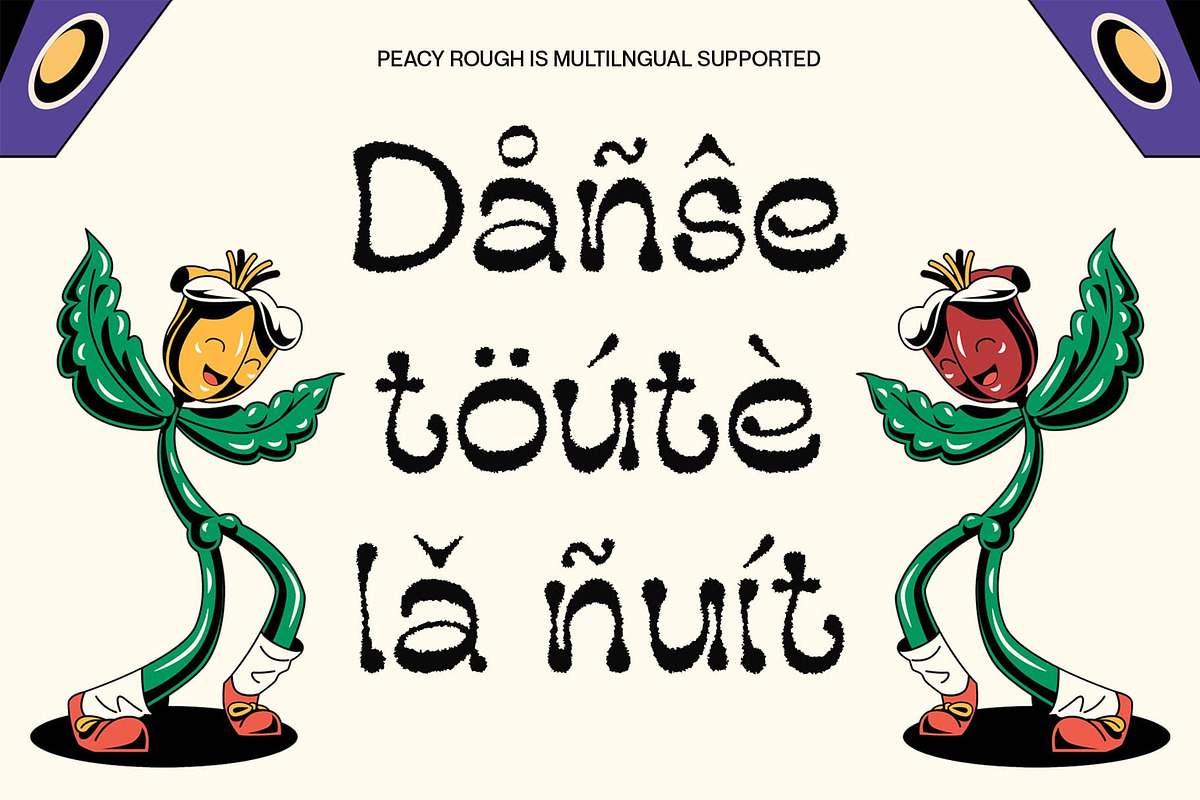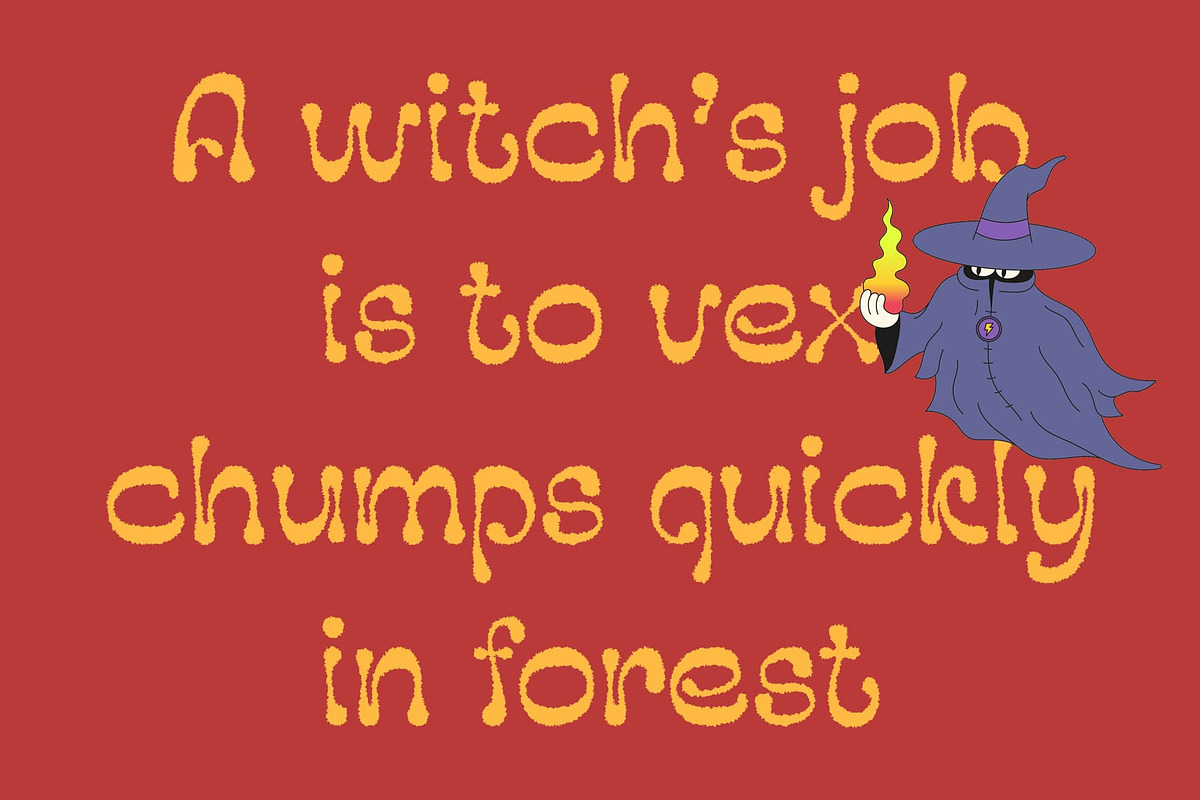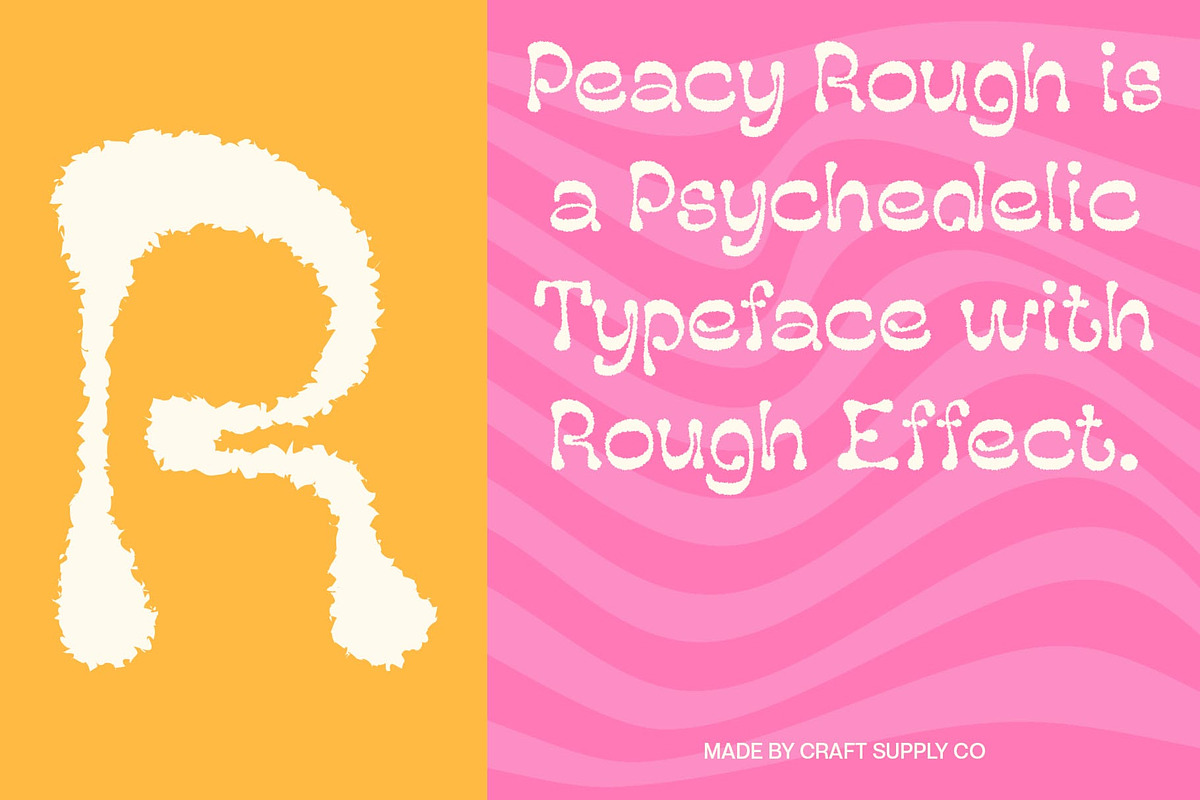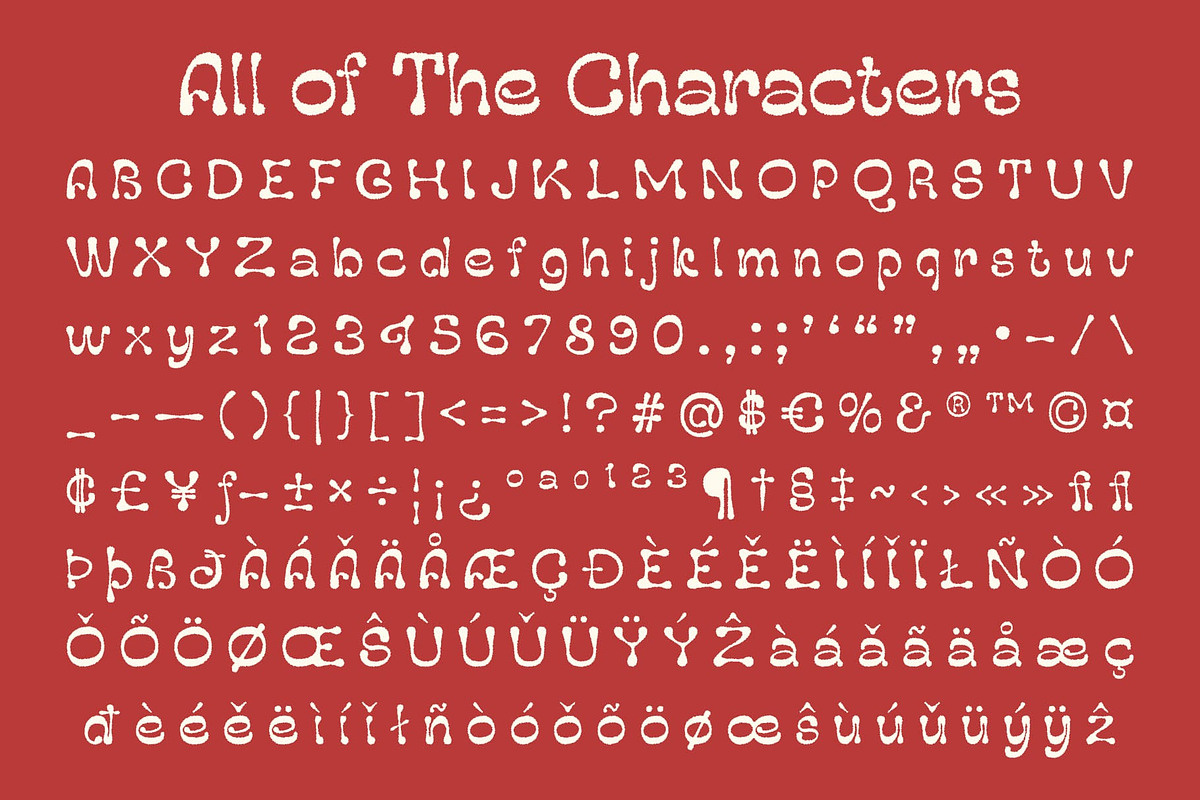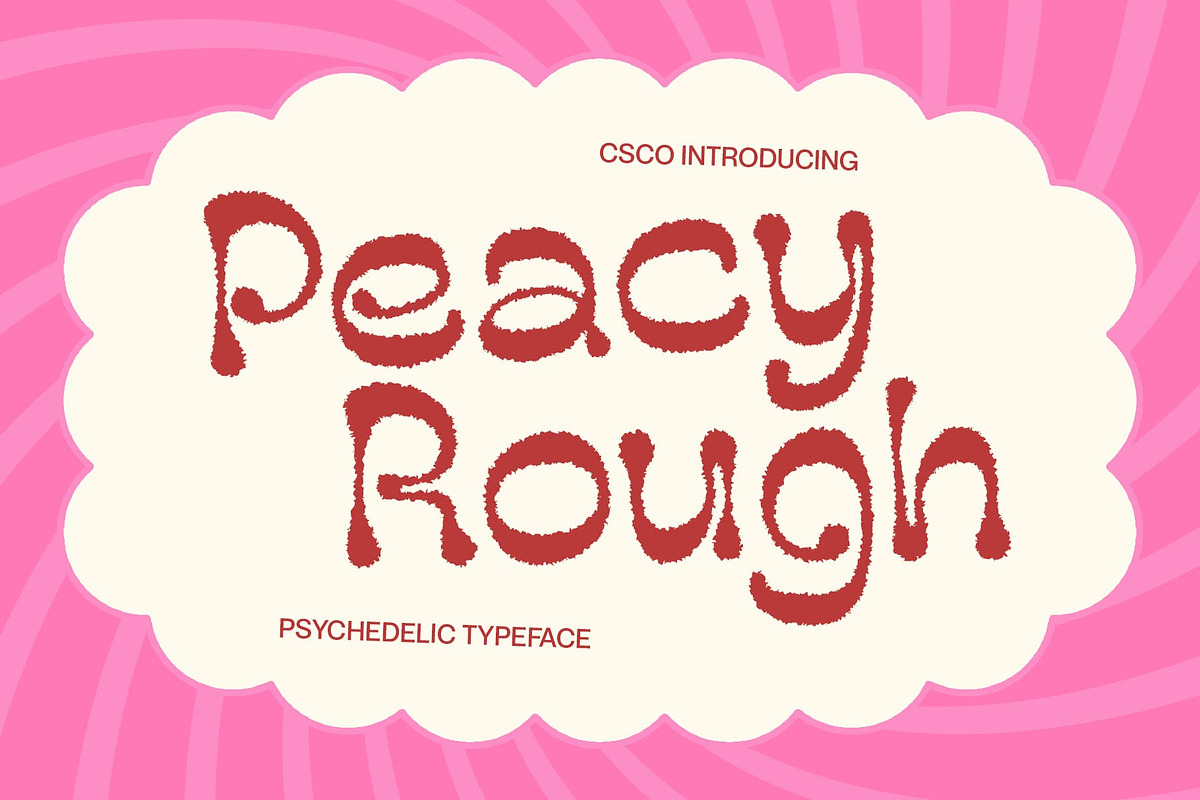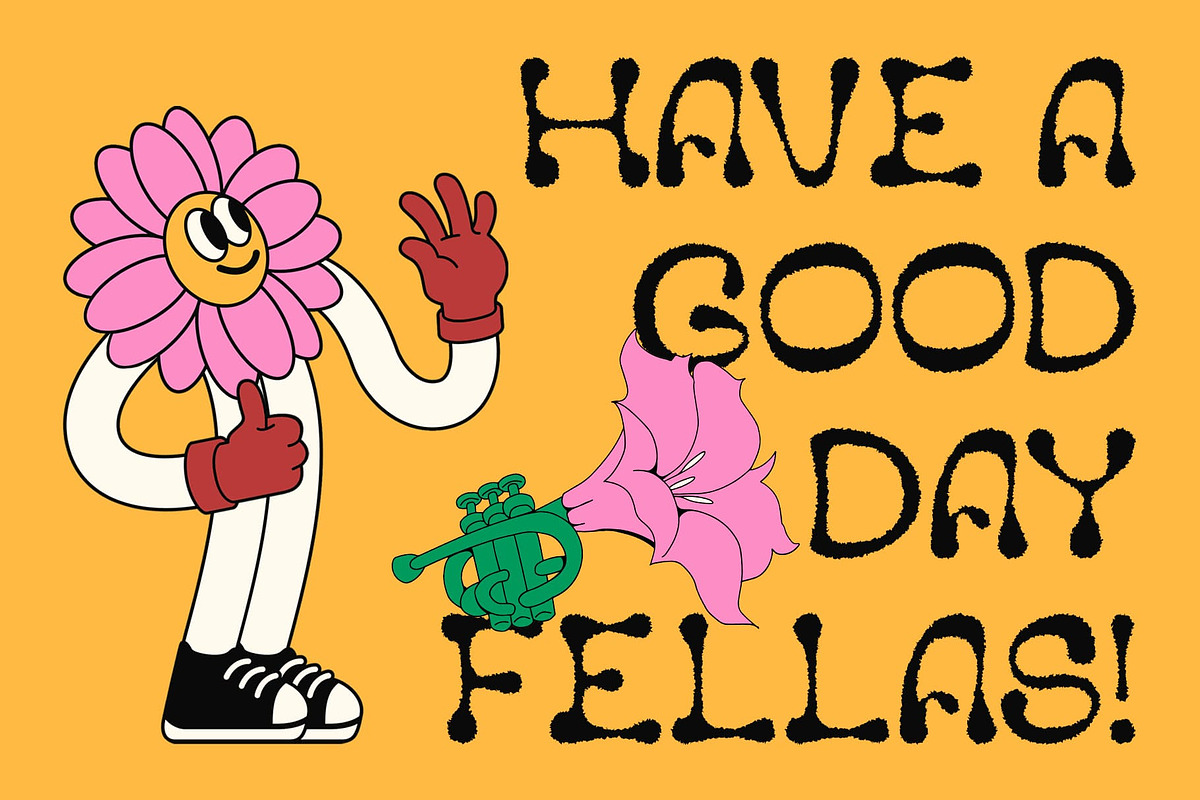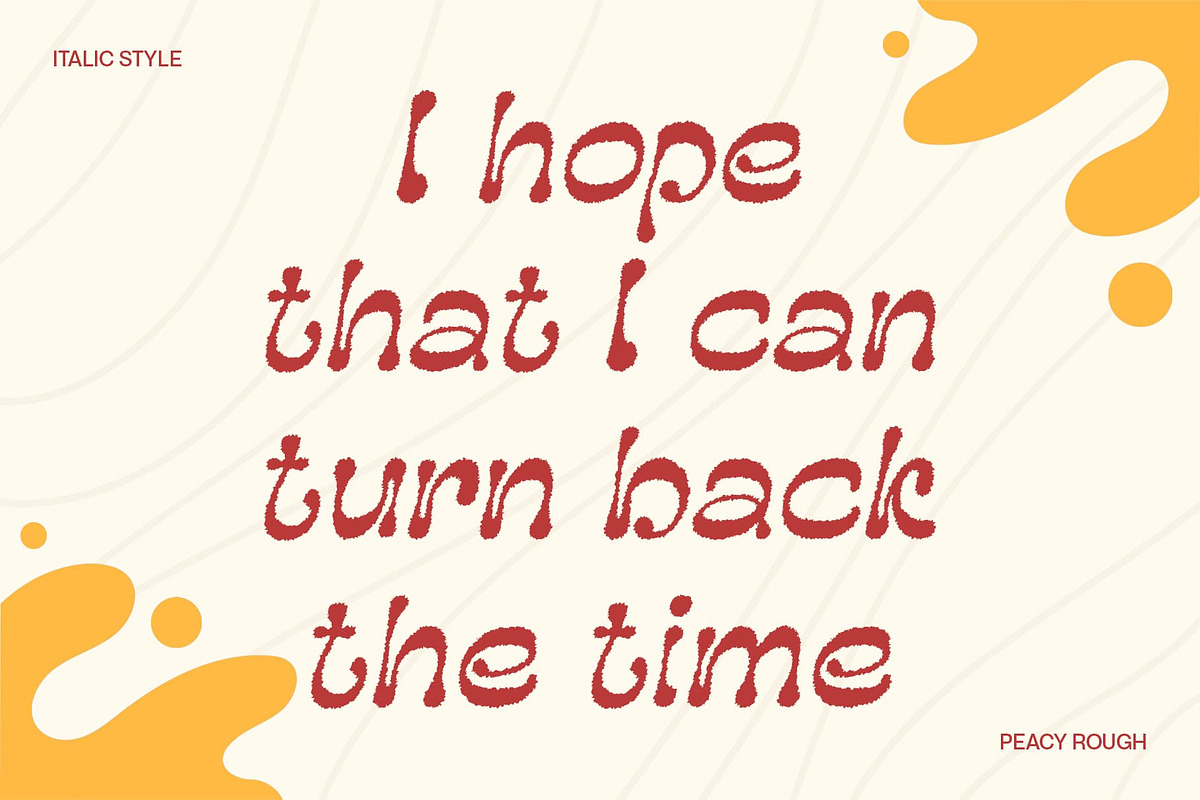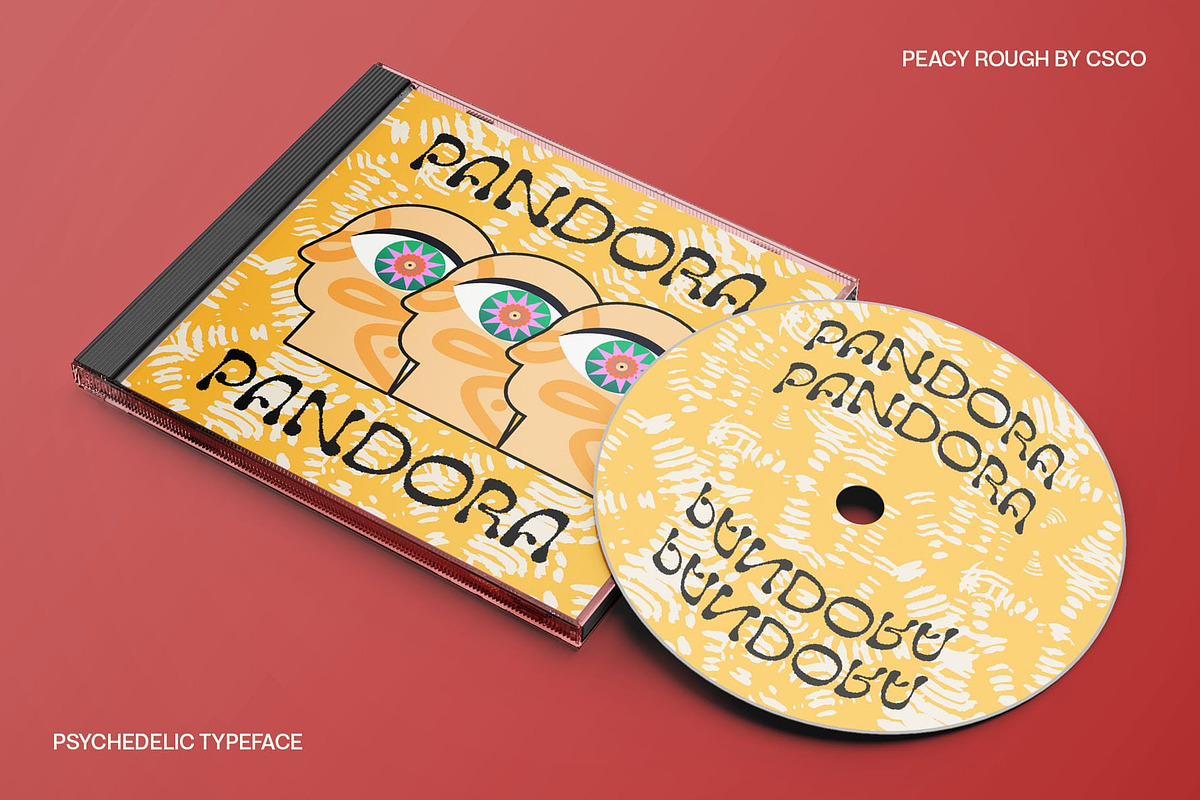
Peacy Rough
Peacy Rough Font – Psychedelic Energy with a Raw Edge
Free-Flowing Psychedelic Forms Peacy Rough is a modern display font that captures the unpredictable spirit of 1960s–70s psychedelic design. Its funky, fluid letterforms twist and stretch with unconventional curves and proportions, exuding a sense of movement and visual rhythm. This wild form brings a playful, rebellious energy to any layout.
Rough Effect for Raw Character What sets Peacy Rough apart is its gritty, hand-drawn texture—a rough effect that gives each character an organic, tactile quality. This texture adds depth and emotion to the typeface, making it feel authentic, raw, and alive. It’s a perfect balance between chaotic beauty and visual intention.
Bold Personality for Creative Projects With its high-energy aesthetic and handcrafted vibe, Peacy Rough is ideal for music posters, album covers, alternative fashion branding, or any visual concept that demands a bold, free-spirited identity. It doesn’t whisper—it shouts with style.
Designed to Stand Out Whether used for headlines, packaging, or visual art, Peacy Rough offers a distinctive and memorable impression. It’s the font of choice for designers who embrace creativity without limits, blending funky retro roots with a grungy, modern twist that ensures your work stands out from the crowd.
- Peacy Rough Regular
- Peacy Rough Italic